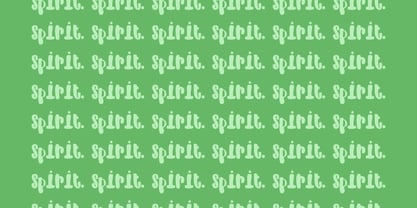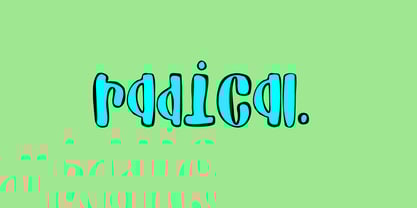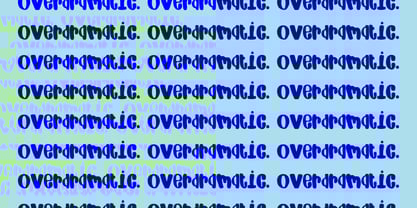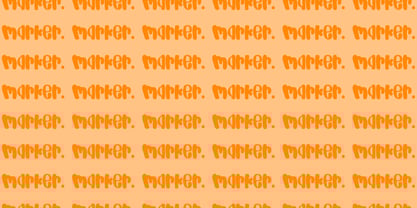
Spirit Marker
by North Lake
The Spirit Marker Font Family was designed by Rudy Toepfer and published by North Lake. Spirit Marker contains 2 styles and family package options. More about this family
Spirit Marker is inspired by handcrafted posters and signs.
Distinctively fun, large, and unique, Spirit Marker is ideal for statement text and titles. Easily readable, but organic shapes make it a delight to design with.